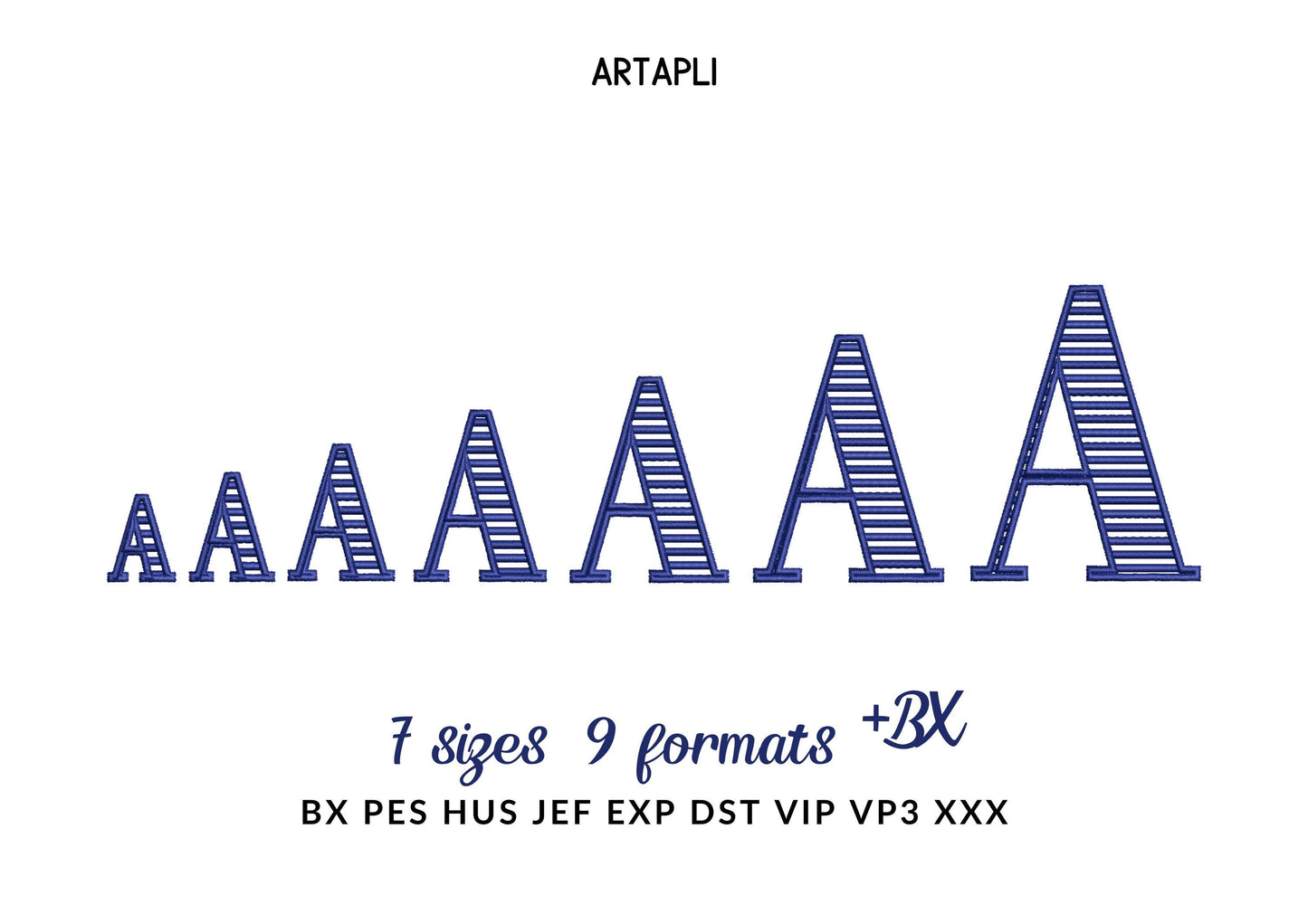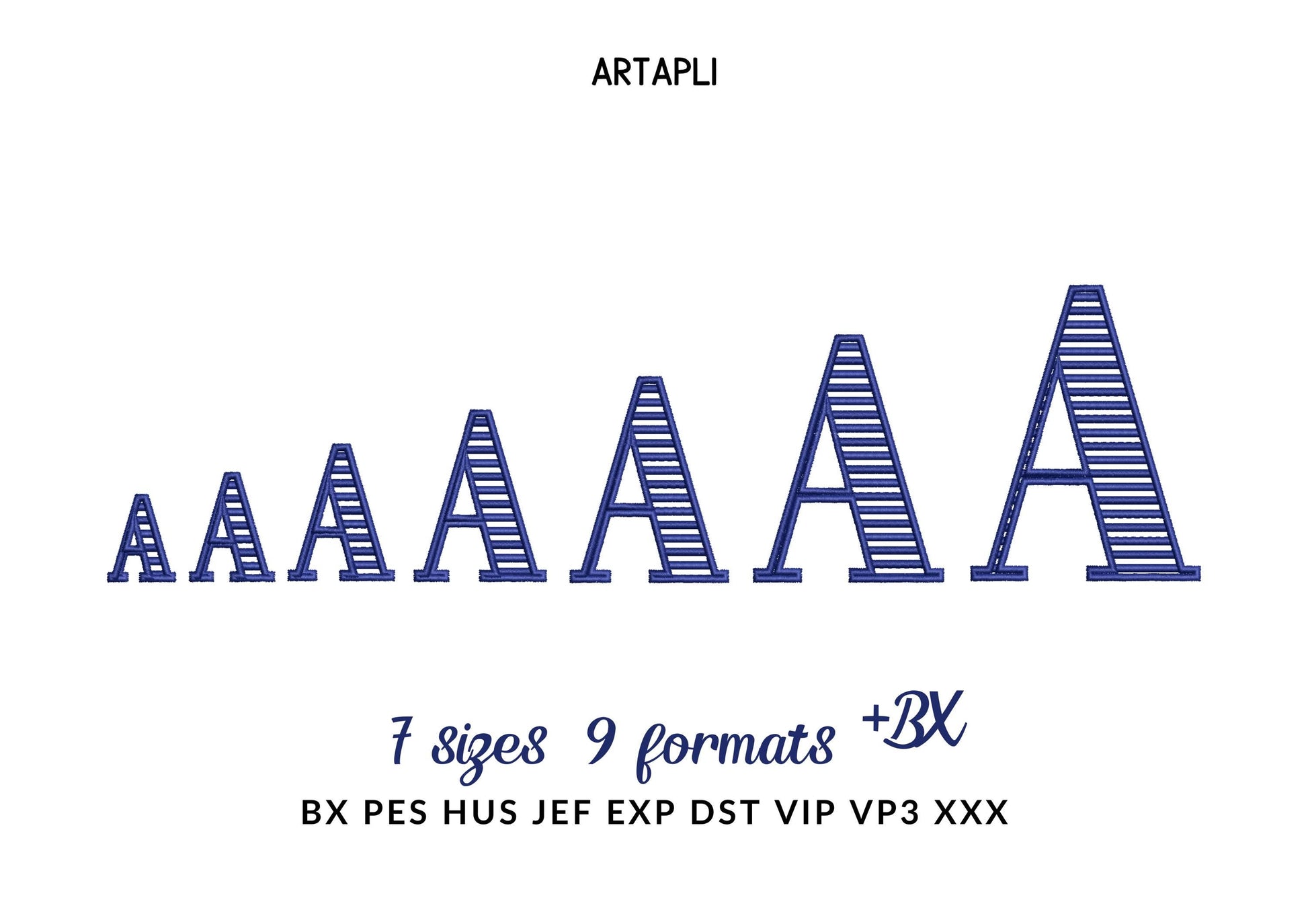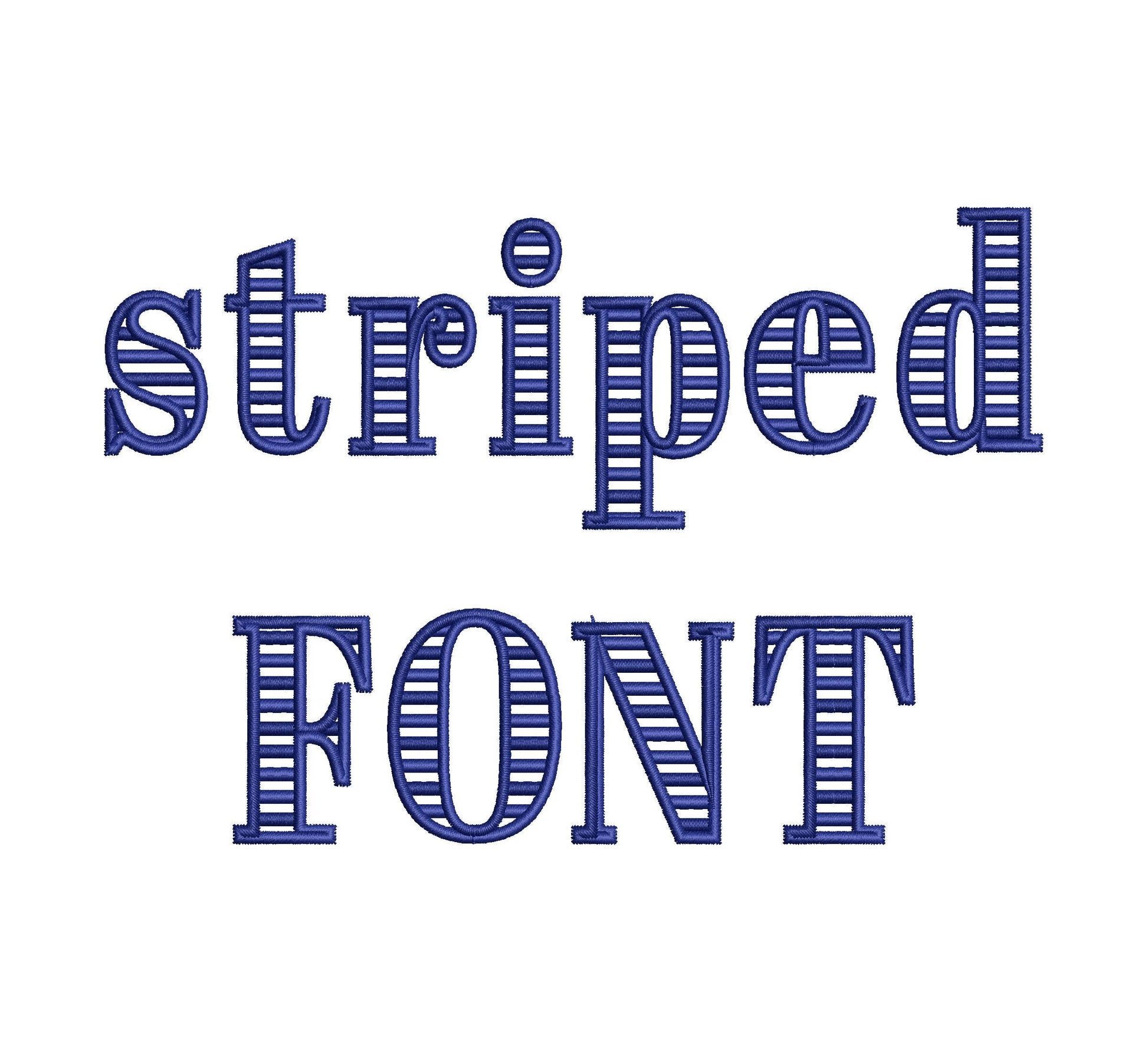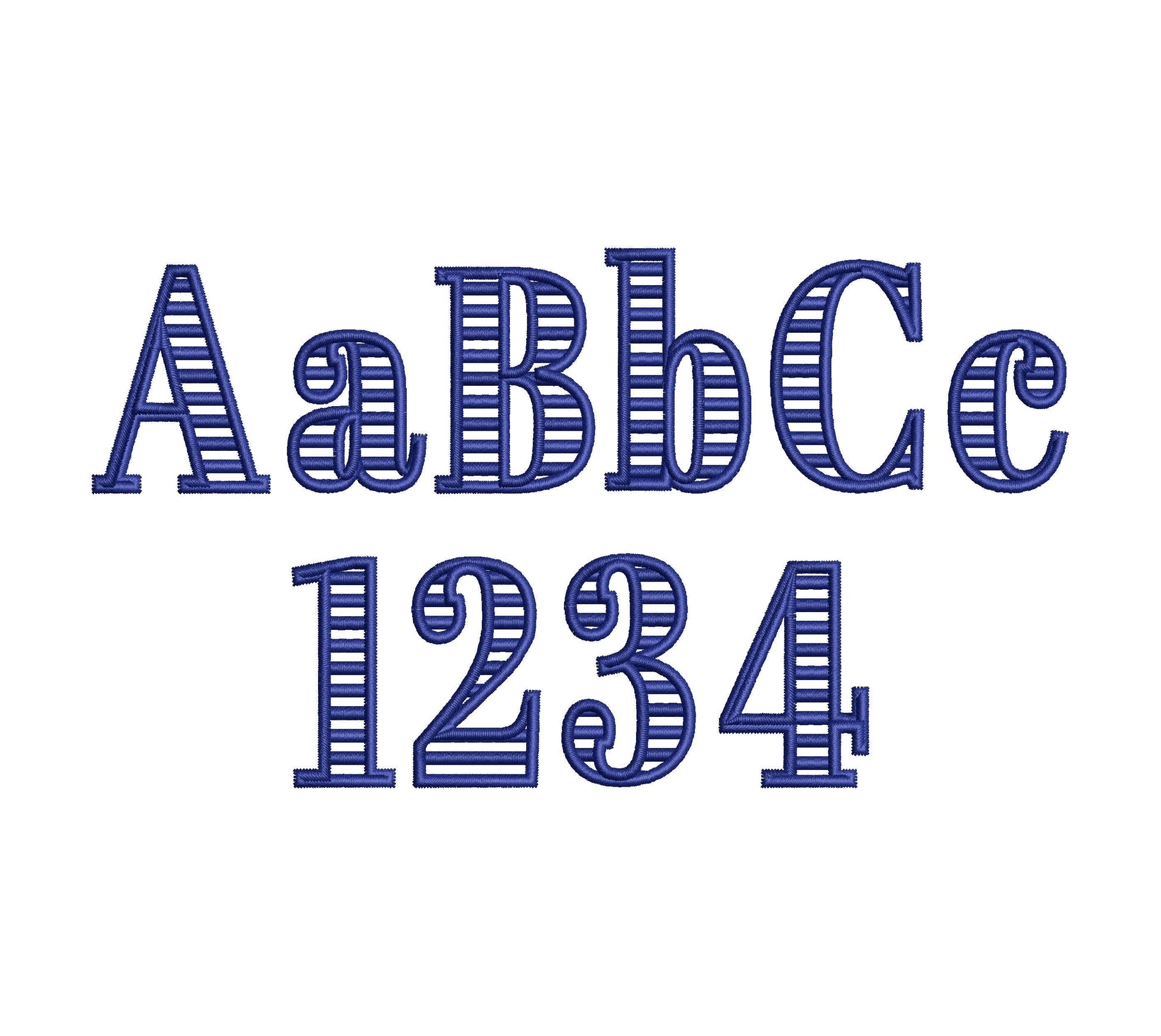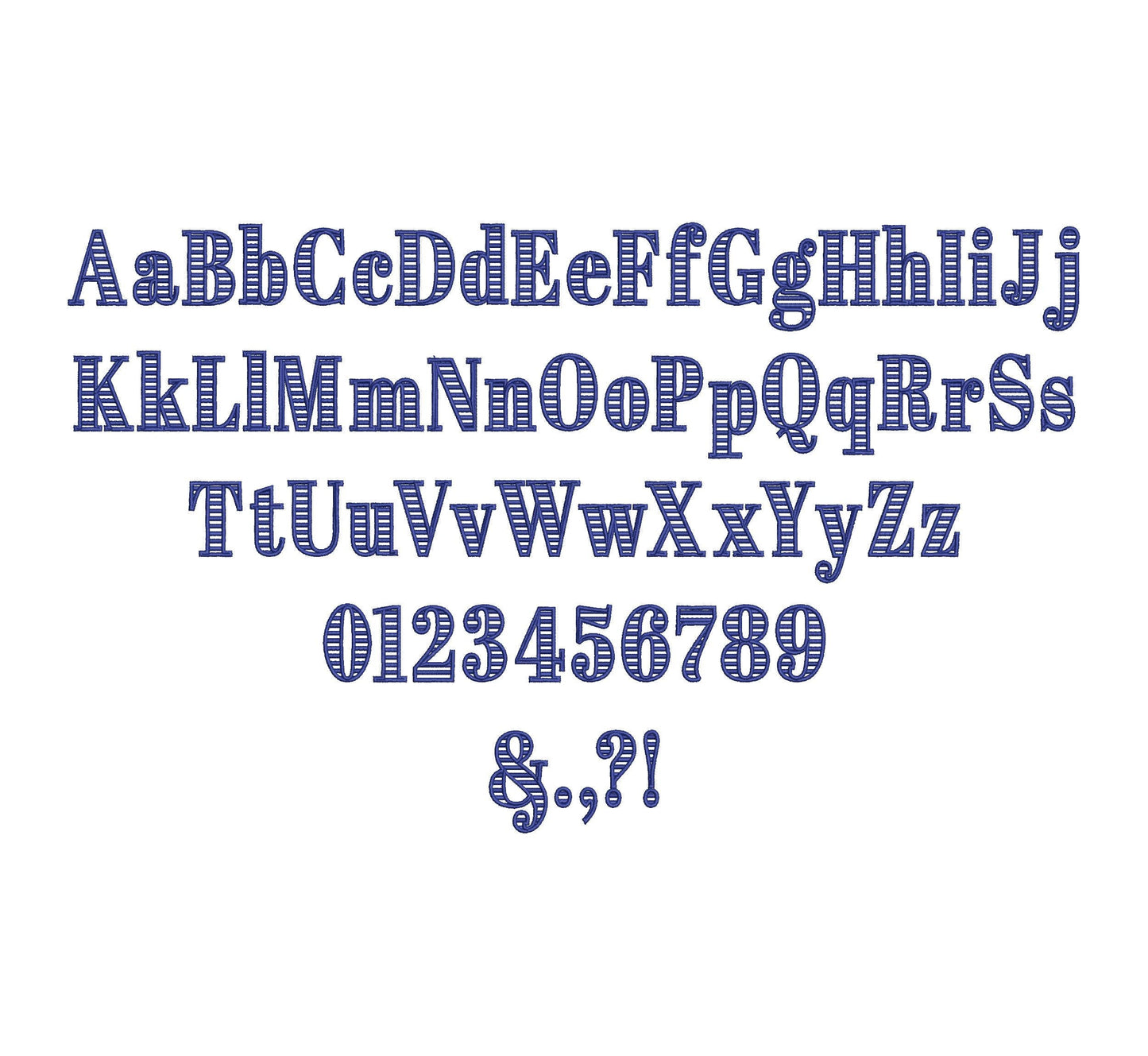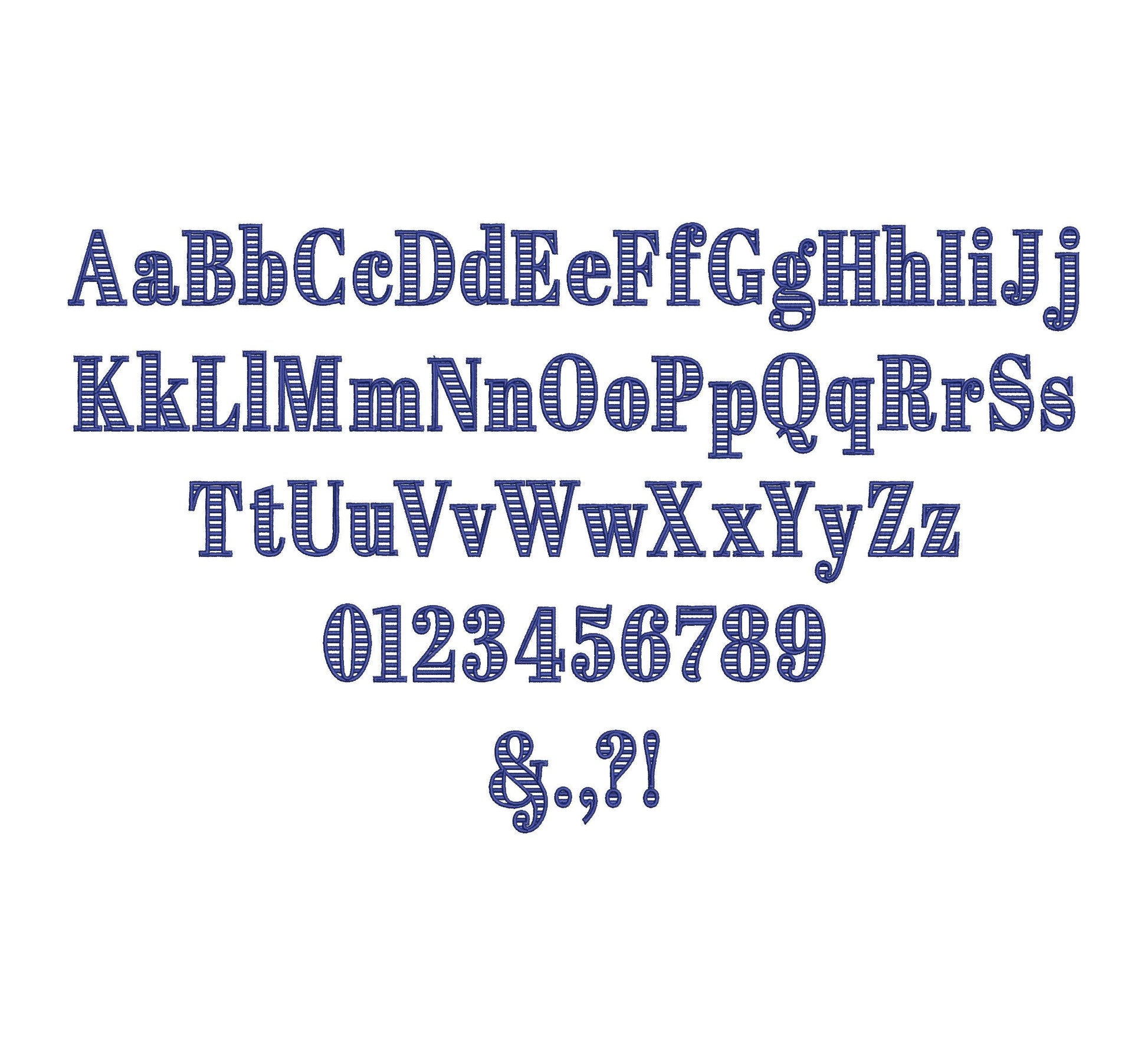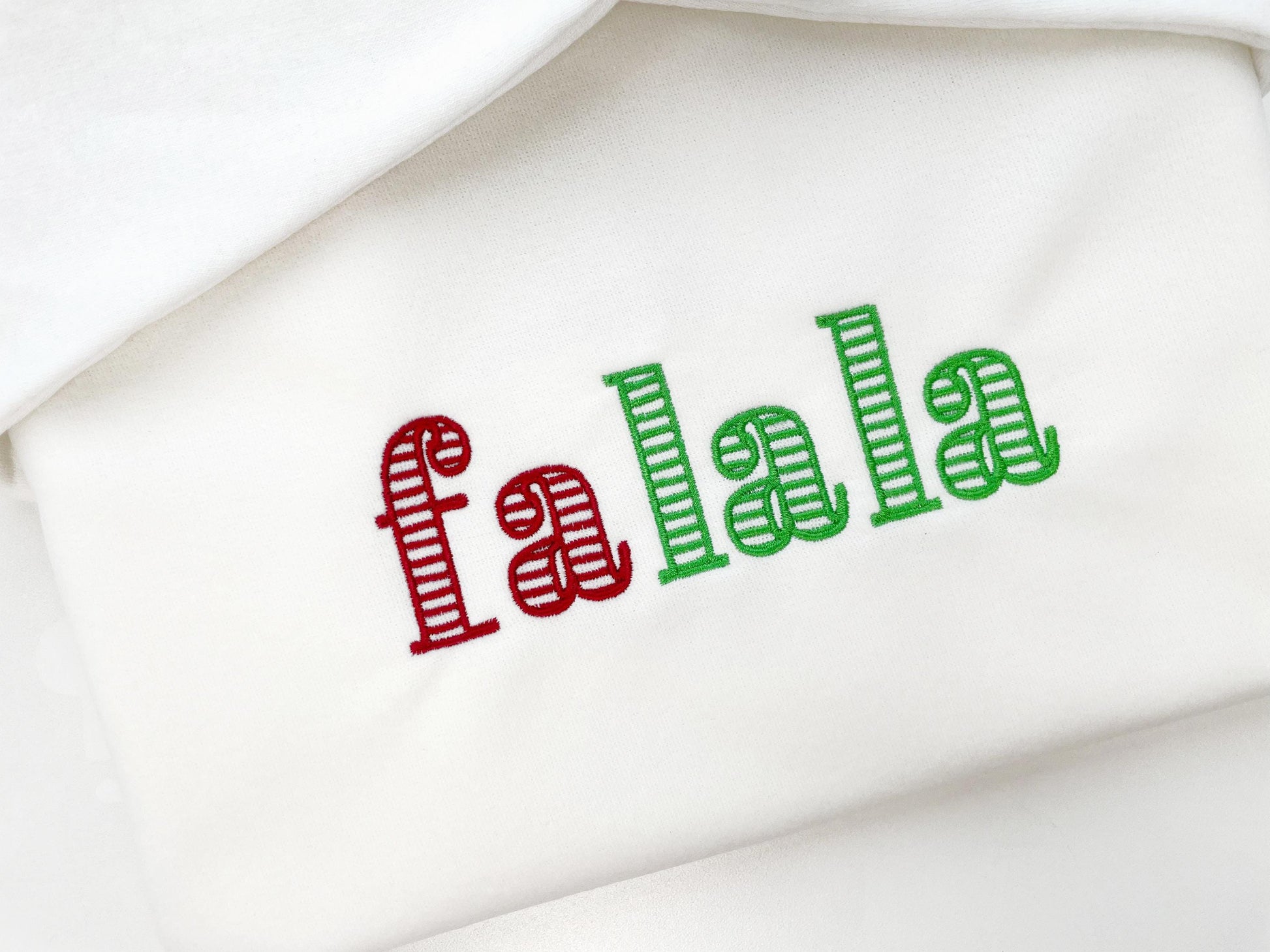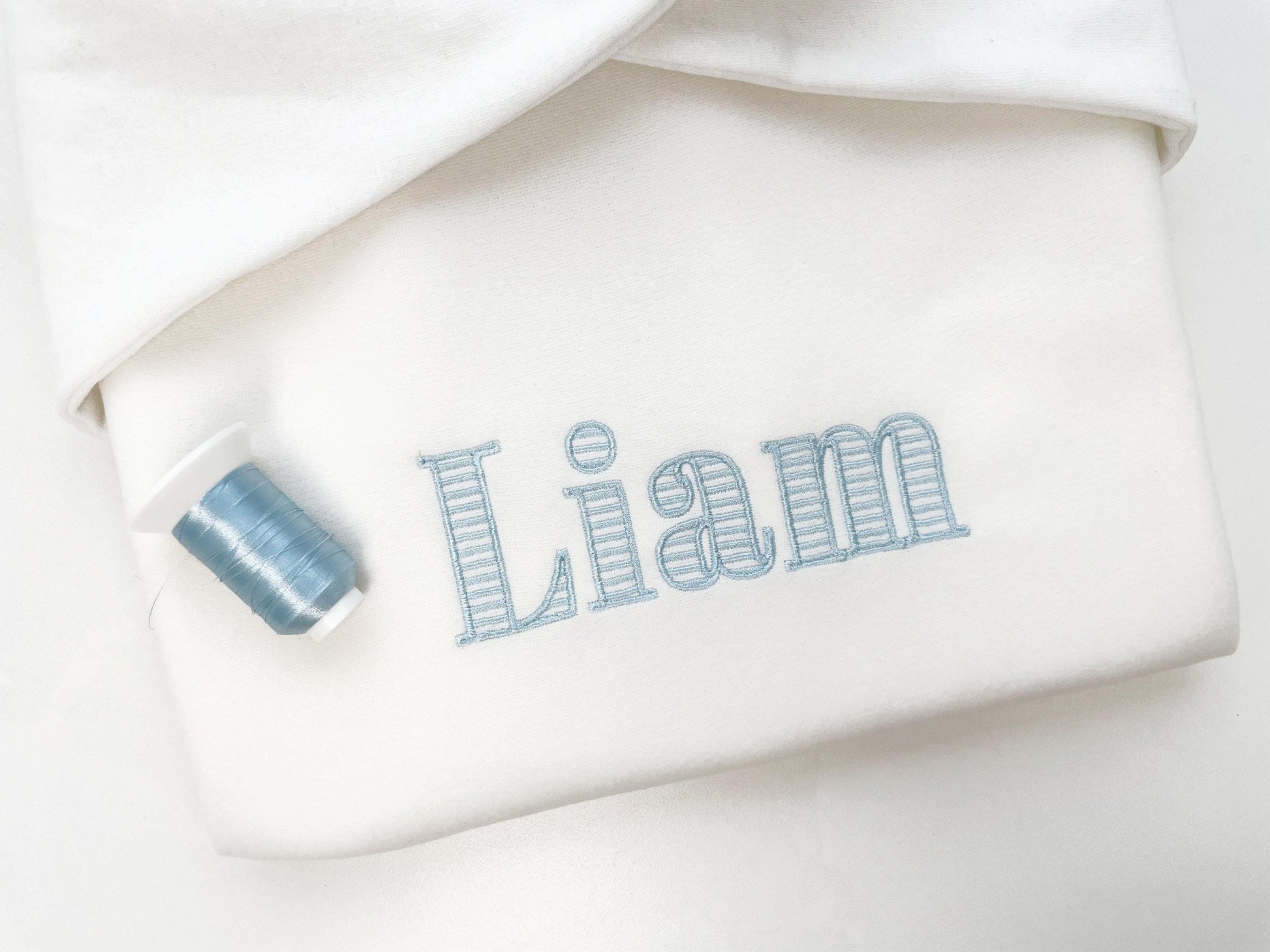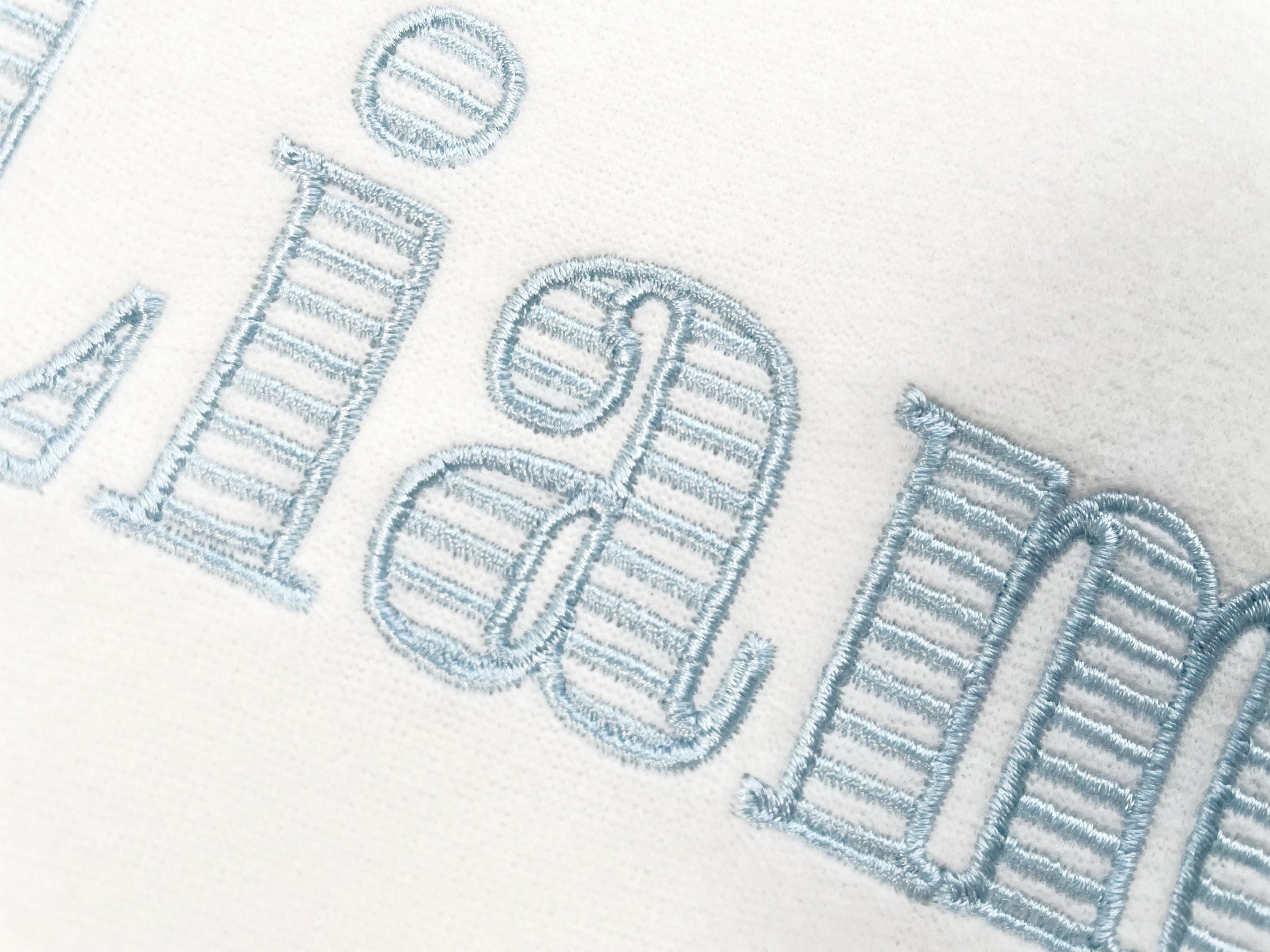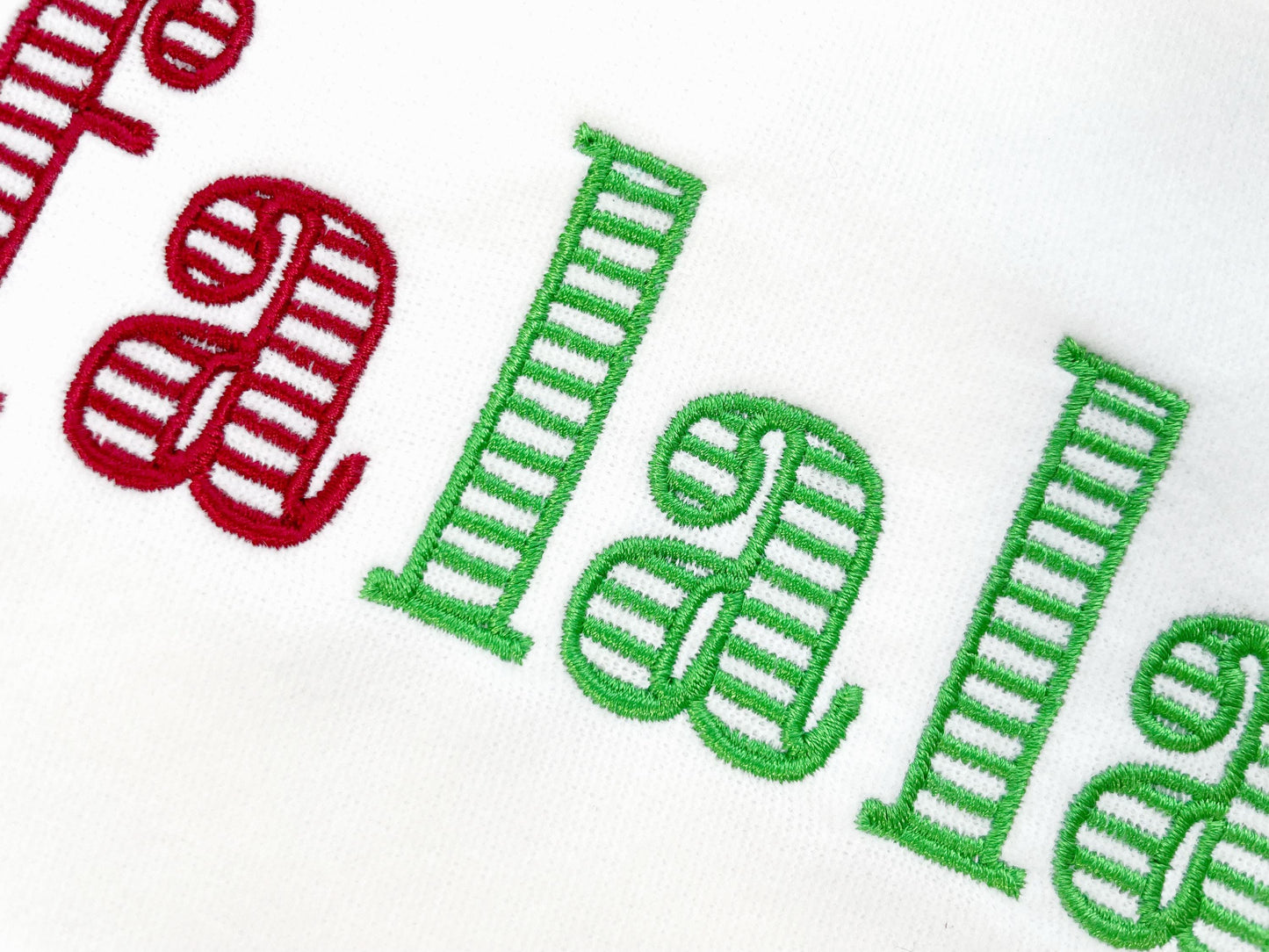
Striped Font Abril Elegant
Uppercase and lowercase letters, numbers 0 to 9 and punctuation, in seven sizes: 1, 1.3, 1.6, 2, 2.5, 3 and 3.5 inches.
- Striped satin block font
- Uppercase, lowercase, numbers 0 to 9, punctuation
- 7 sizes, 1 to 3.5 in